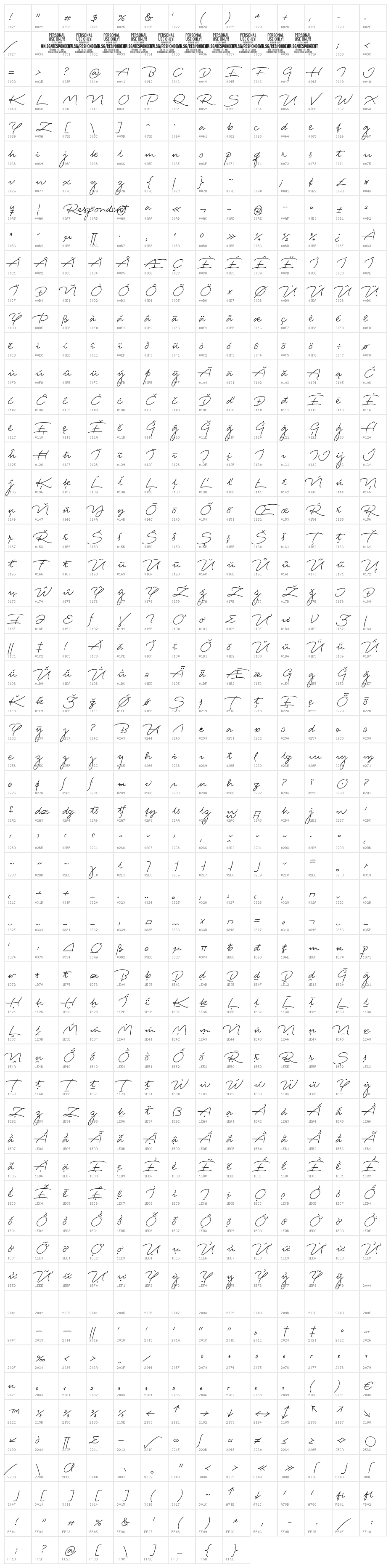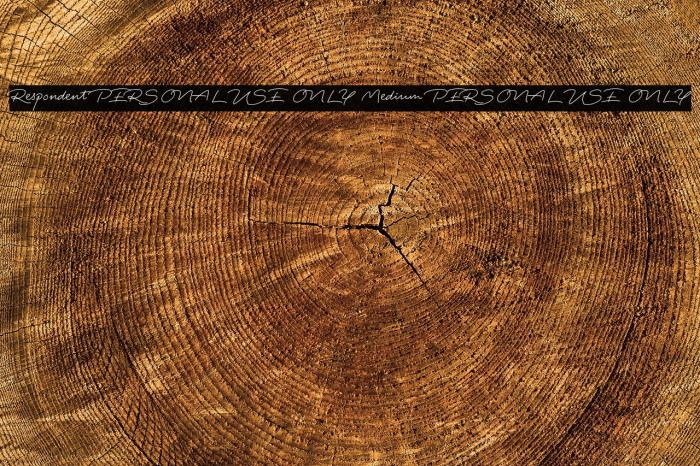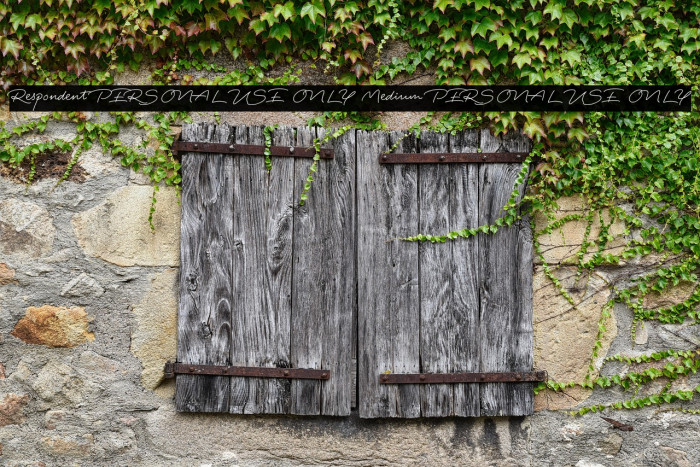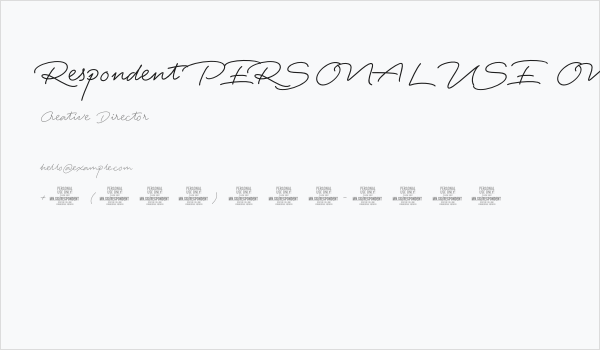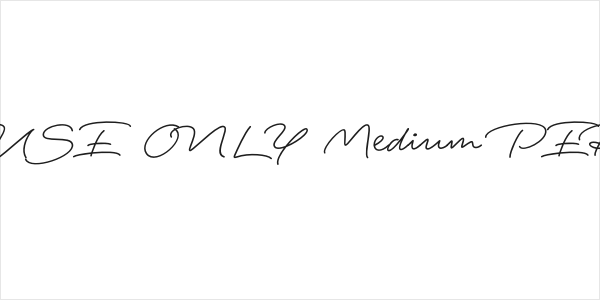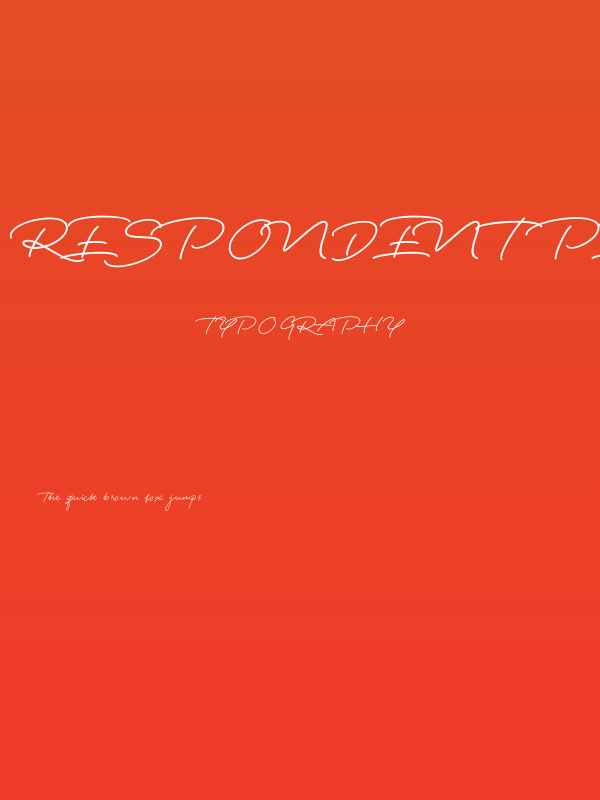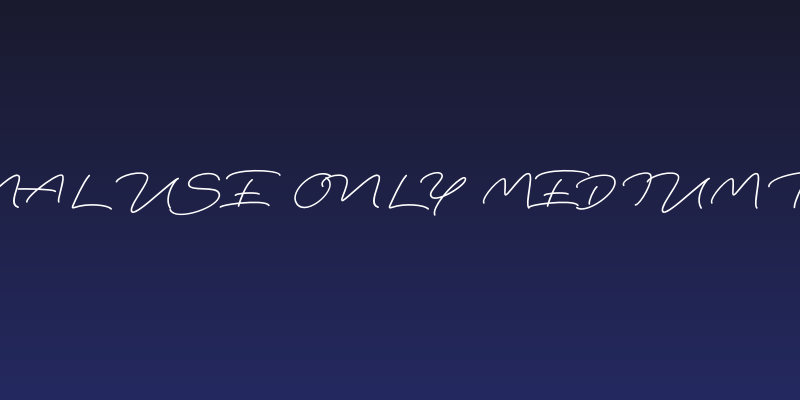
Respondent PERSONAL USE ONLY Medium PERSONAL USE ONLY Font
Respondent PERSONAL USE ONLY Medium PERSONAL USE ONLY Description
This font features an elegant, flowing script style that mimics natural handwriting. The characters are connected, creating a seamless and fluid appearance. The uppercase letters are slightly more ornate, with graceful loops and curves, while the lowercase letters maintain a consistent, smooth line. The font exudes a sense of sophistication and personal touch, making it ideal for projects that require a handwritten aesthetic. The special characters are designed to match the overall style, ensuring a cohesive look across all text elements.
| Use Case | Logos, Invitations, Personal correspondence |
| Proposed Projects | Ideal for wedding invitations, personal branding, greeting cards, and elegant stationery. |